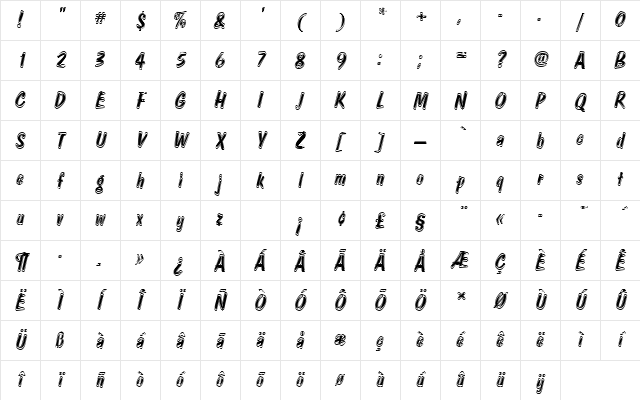
Complete DomCasualDRegItaIn1 Regular glyph index. Displaying only characters natively supported by DomCasualDRegItaIn1 Regular font.
DomCasualDRegItaIn1 is a composed and adaptable typeface that performs quietly and consistently across a wide range of design contexts.